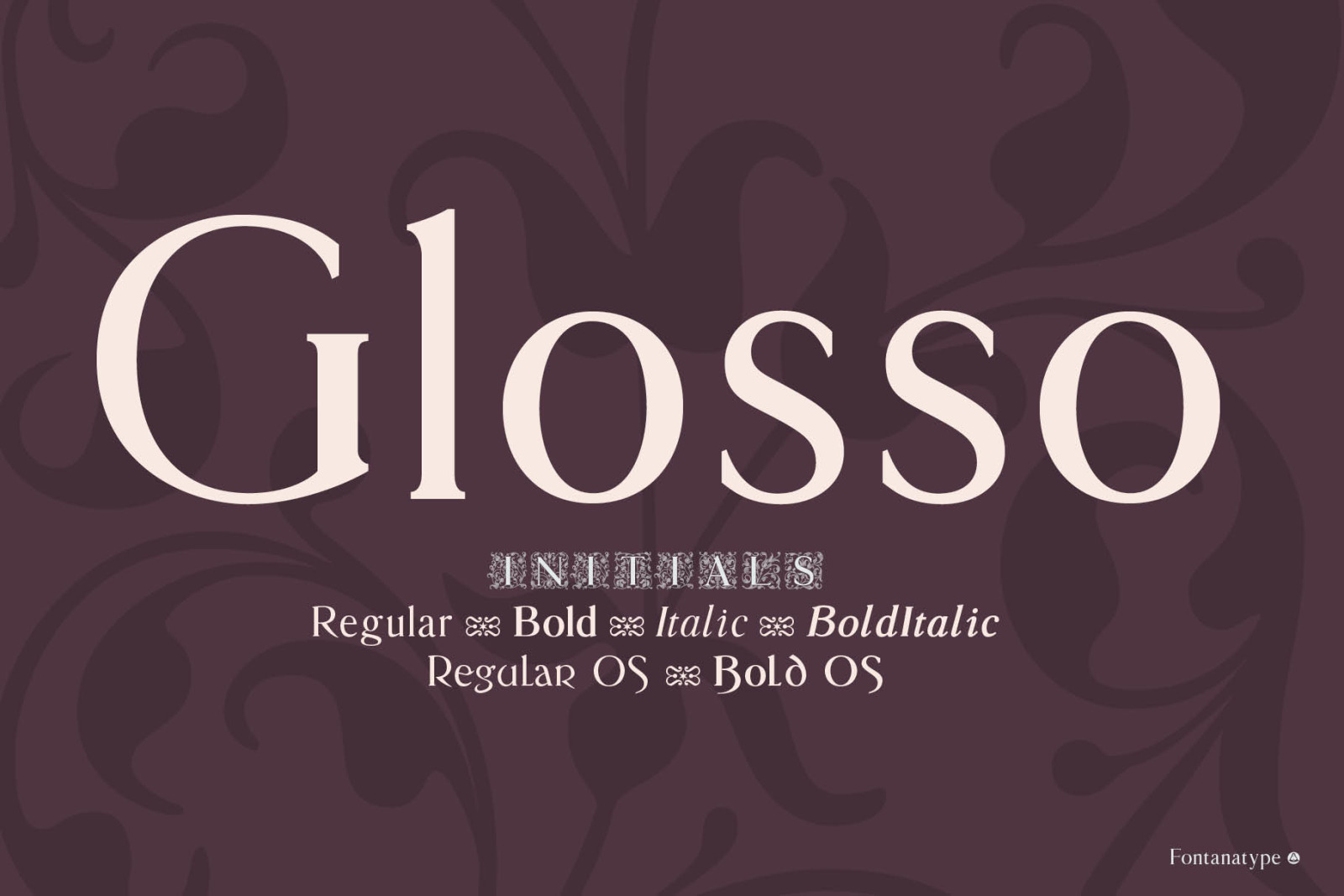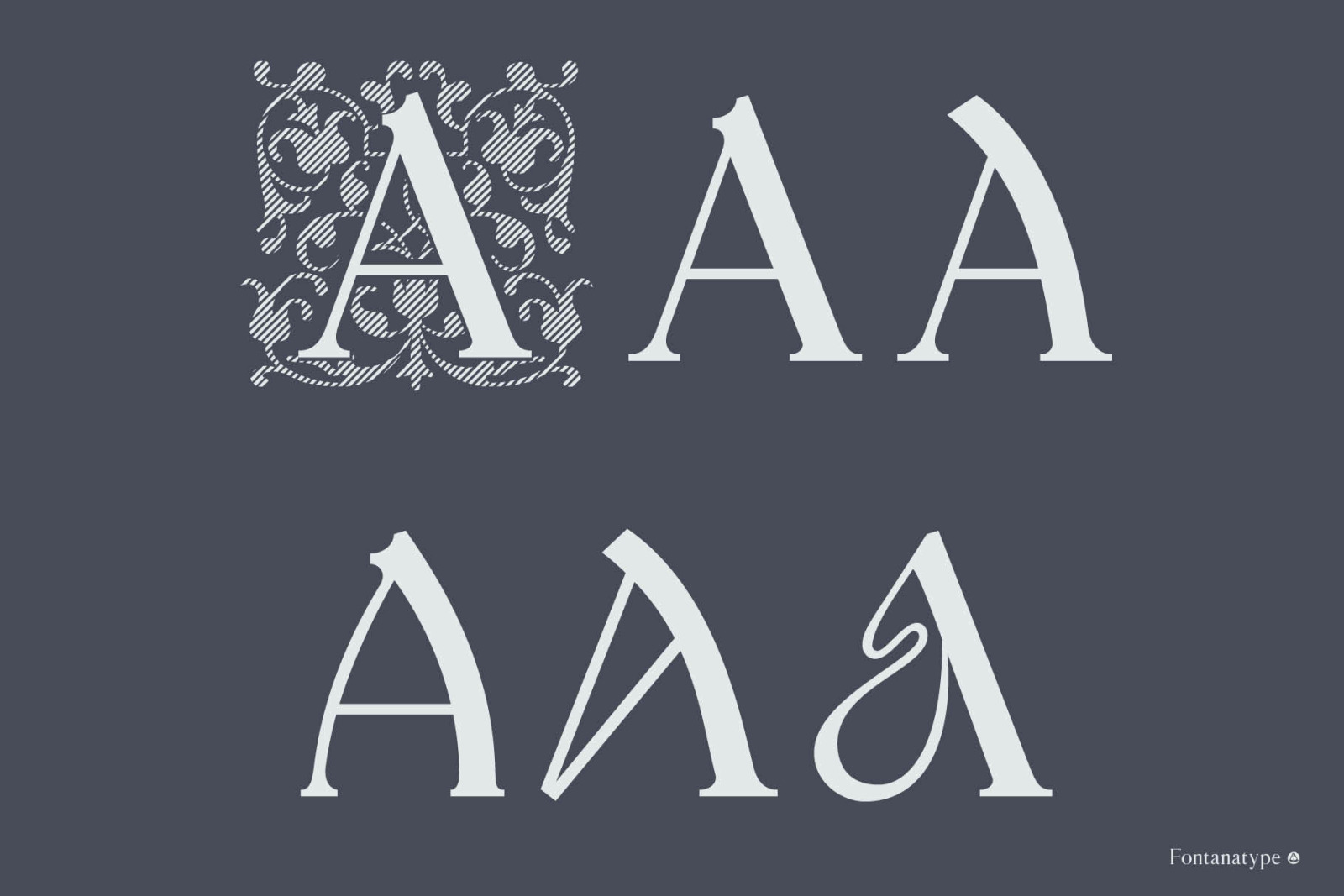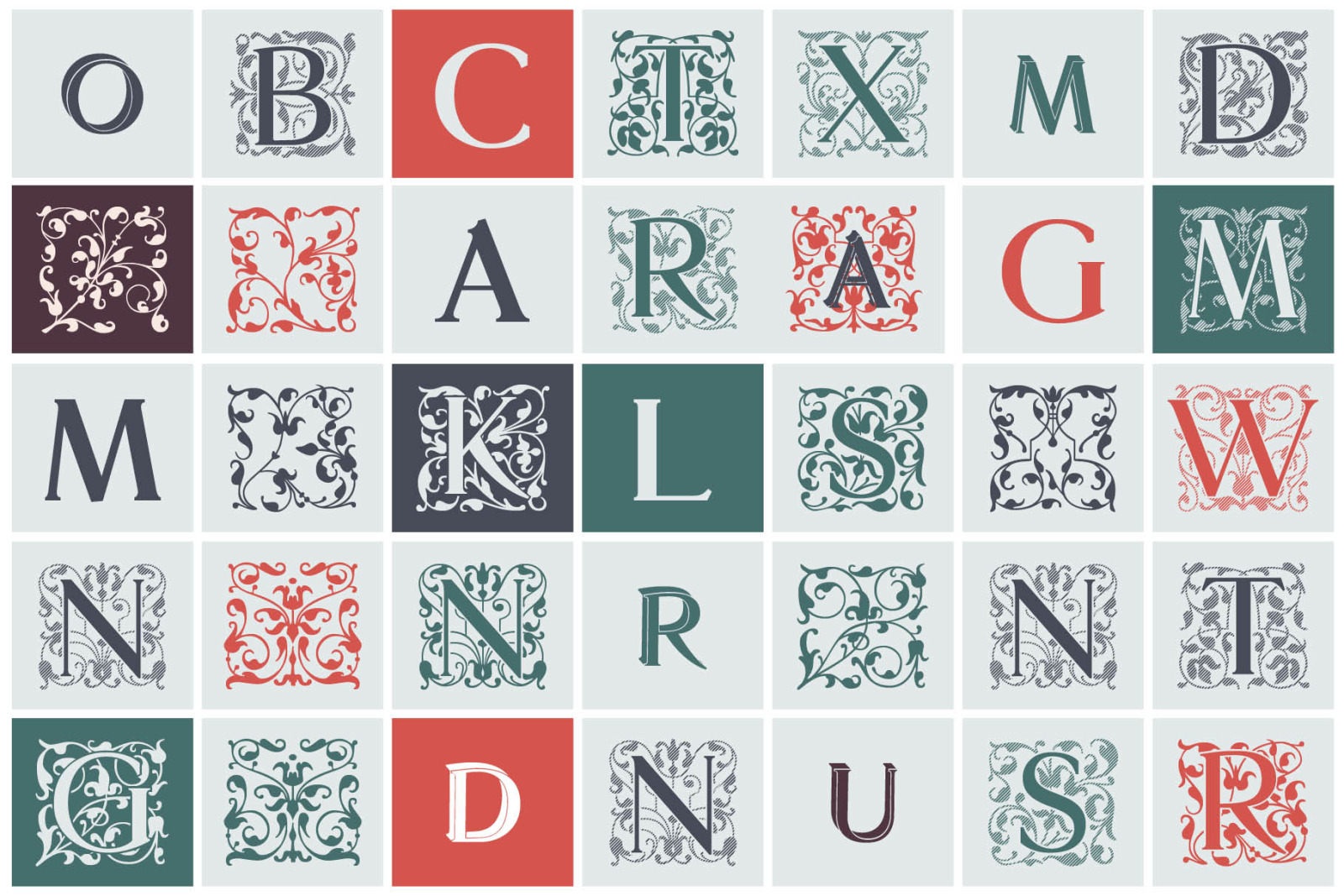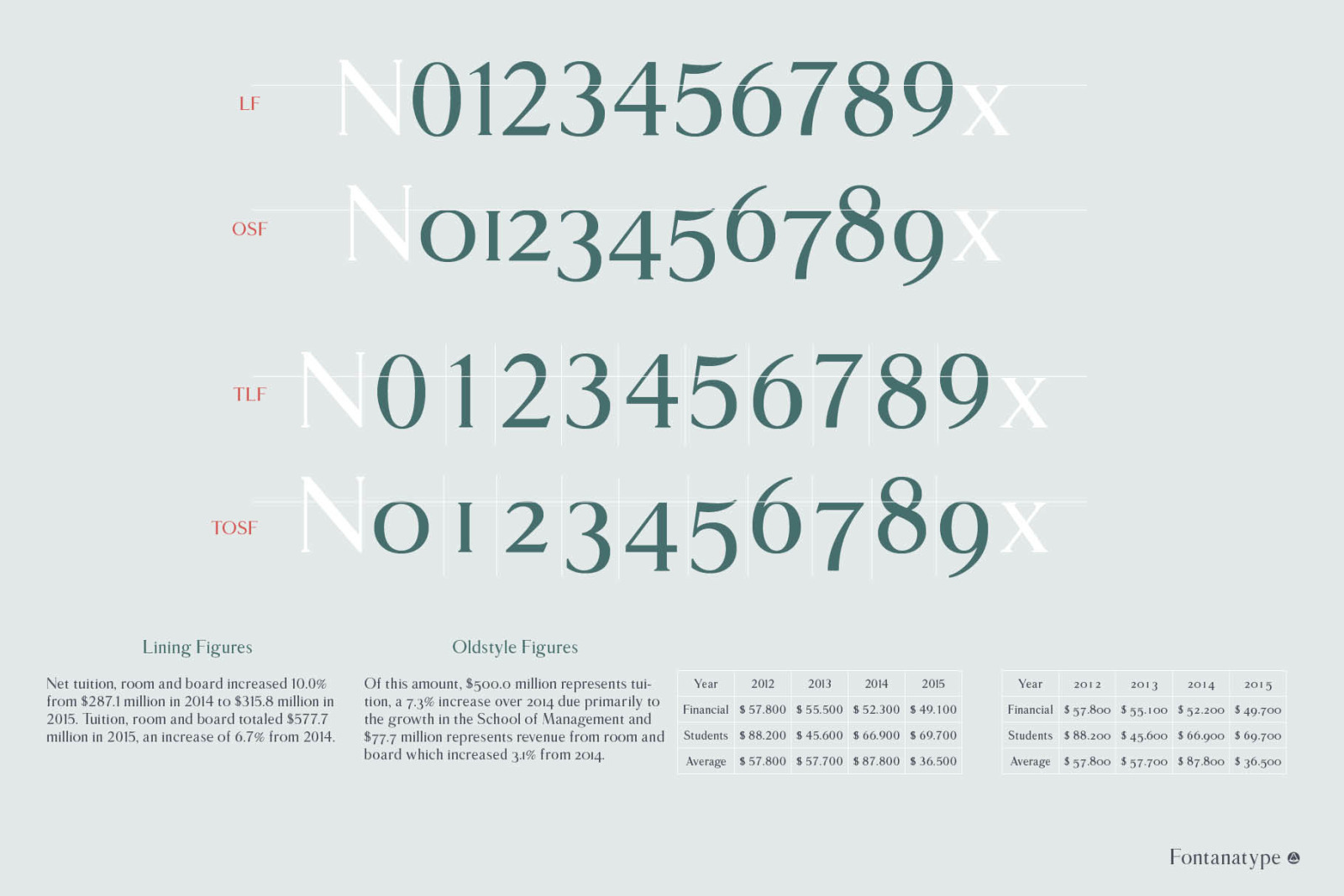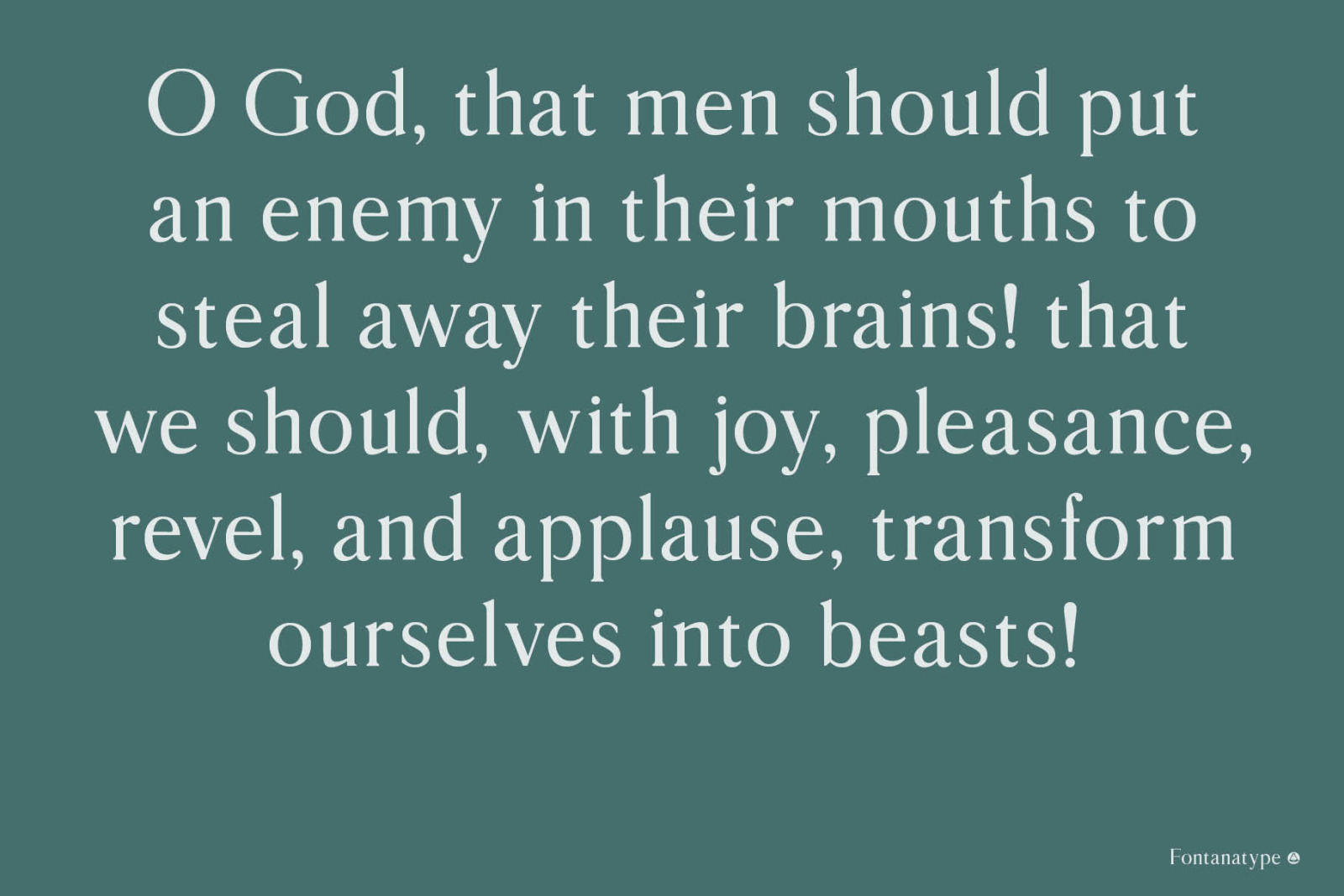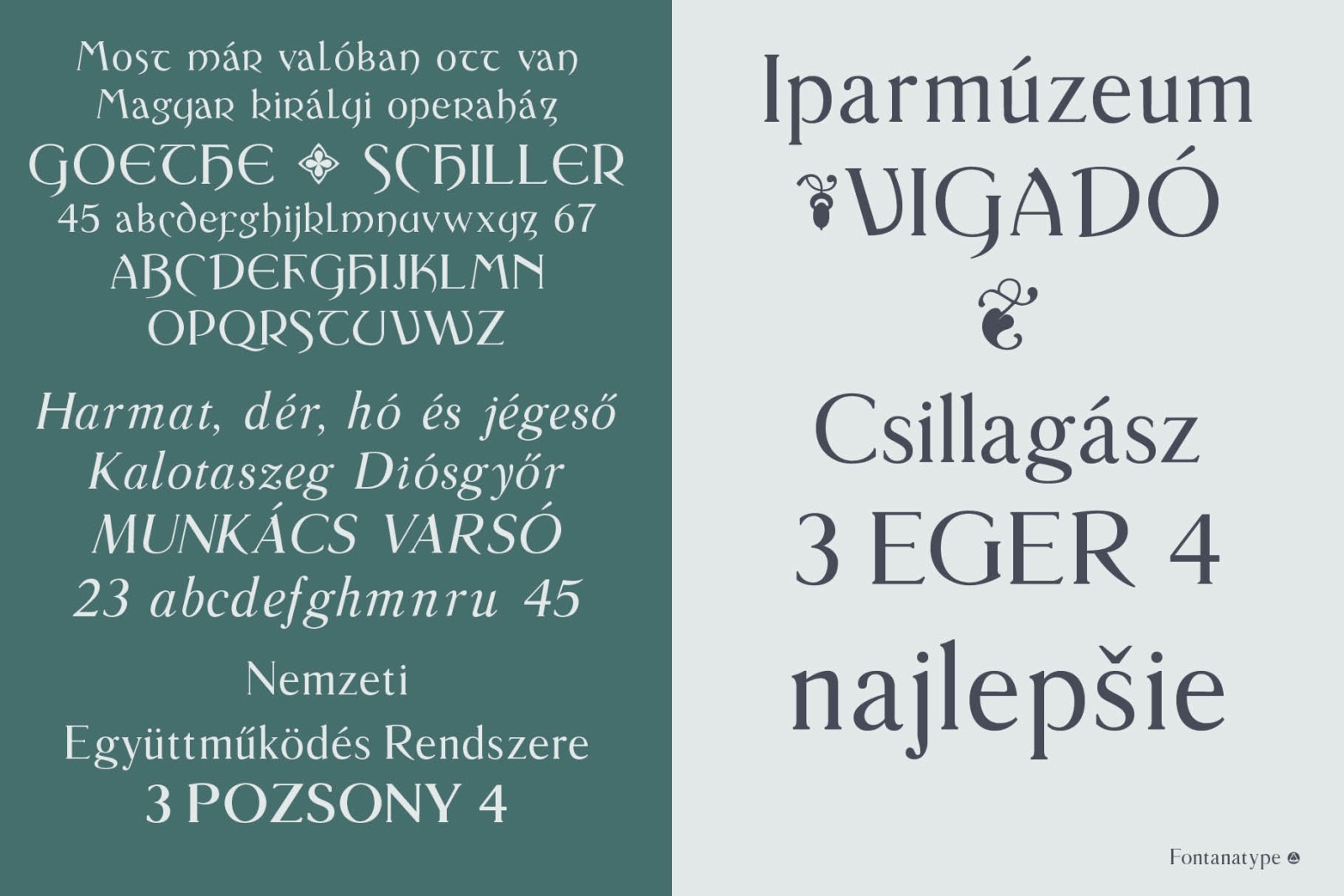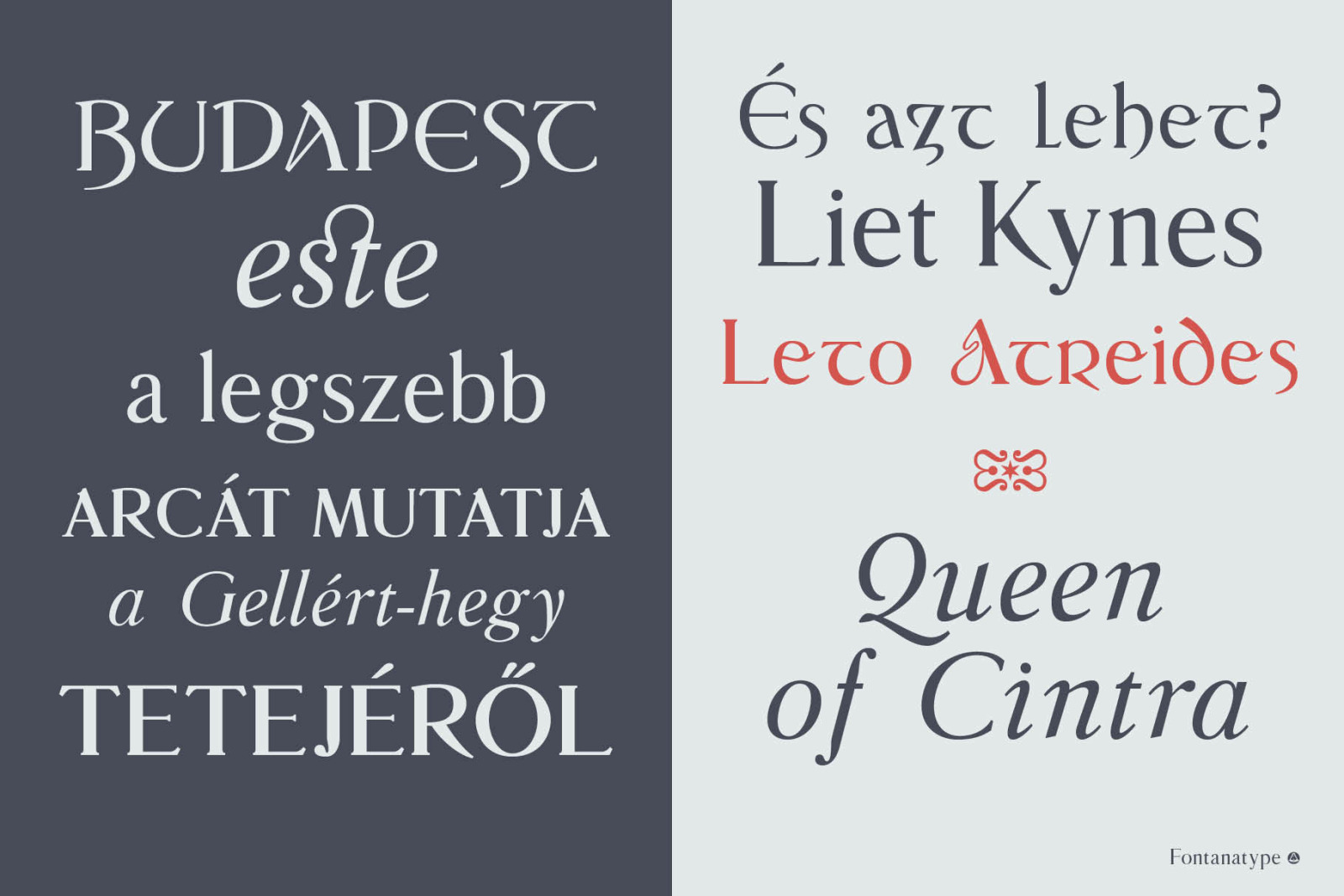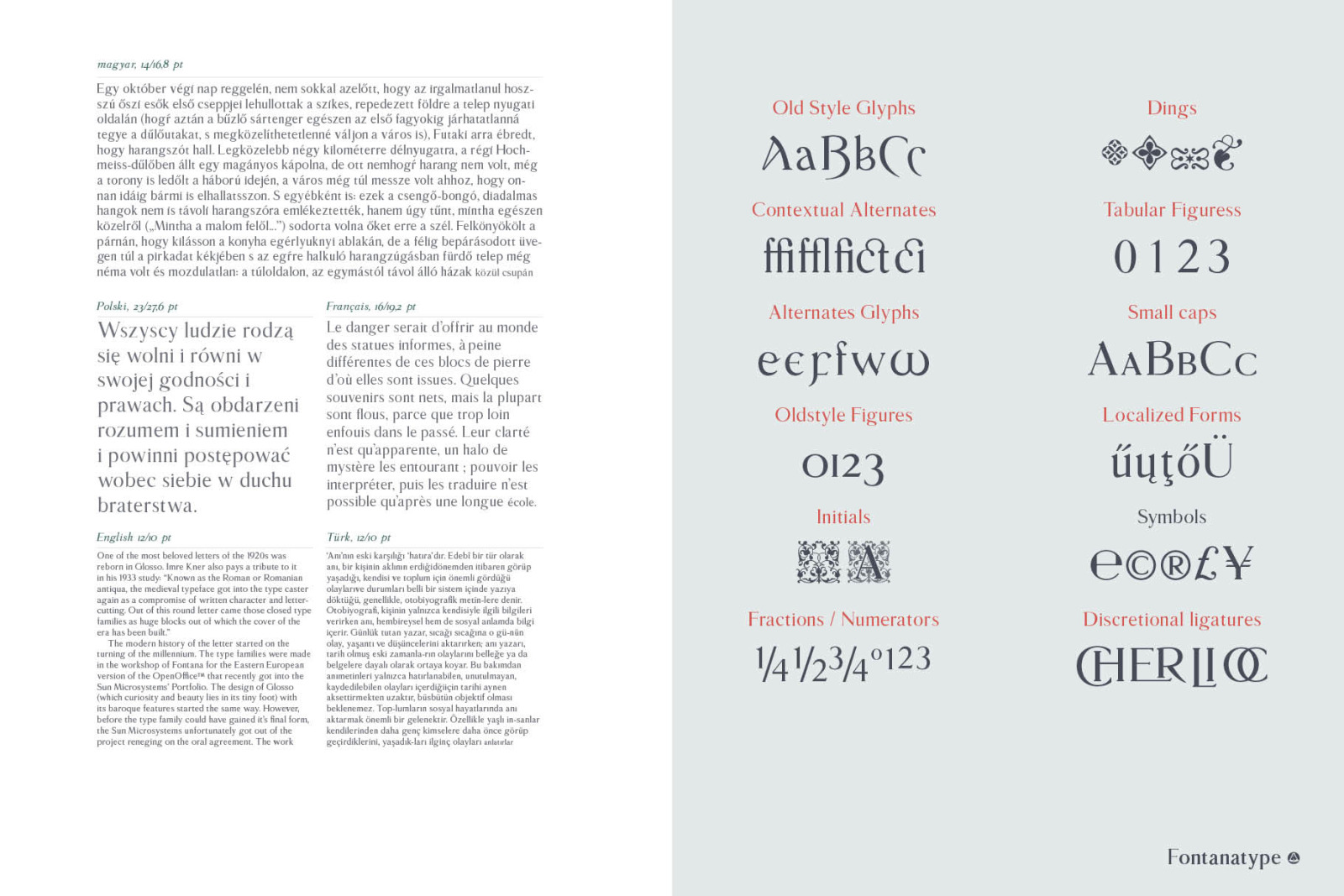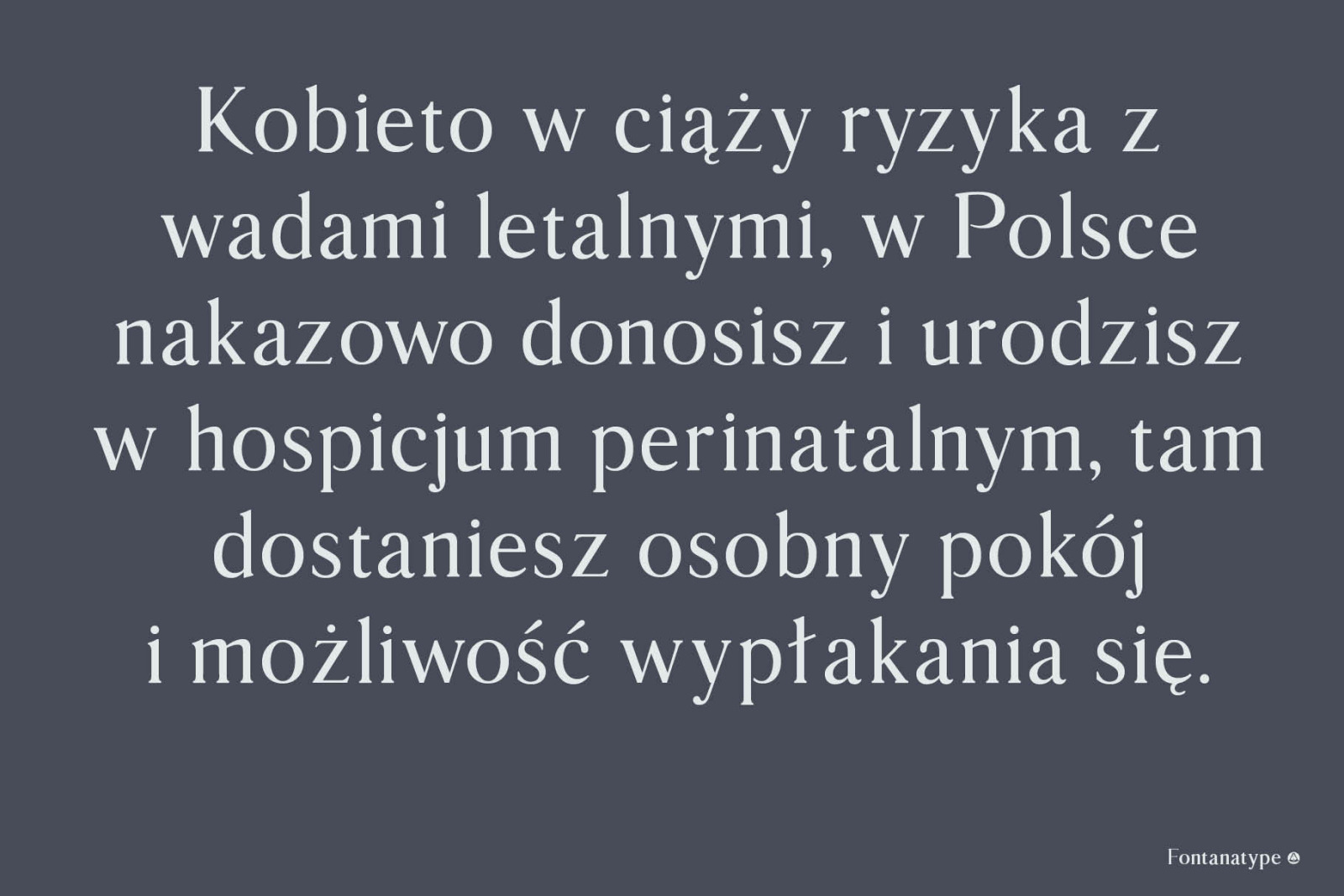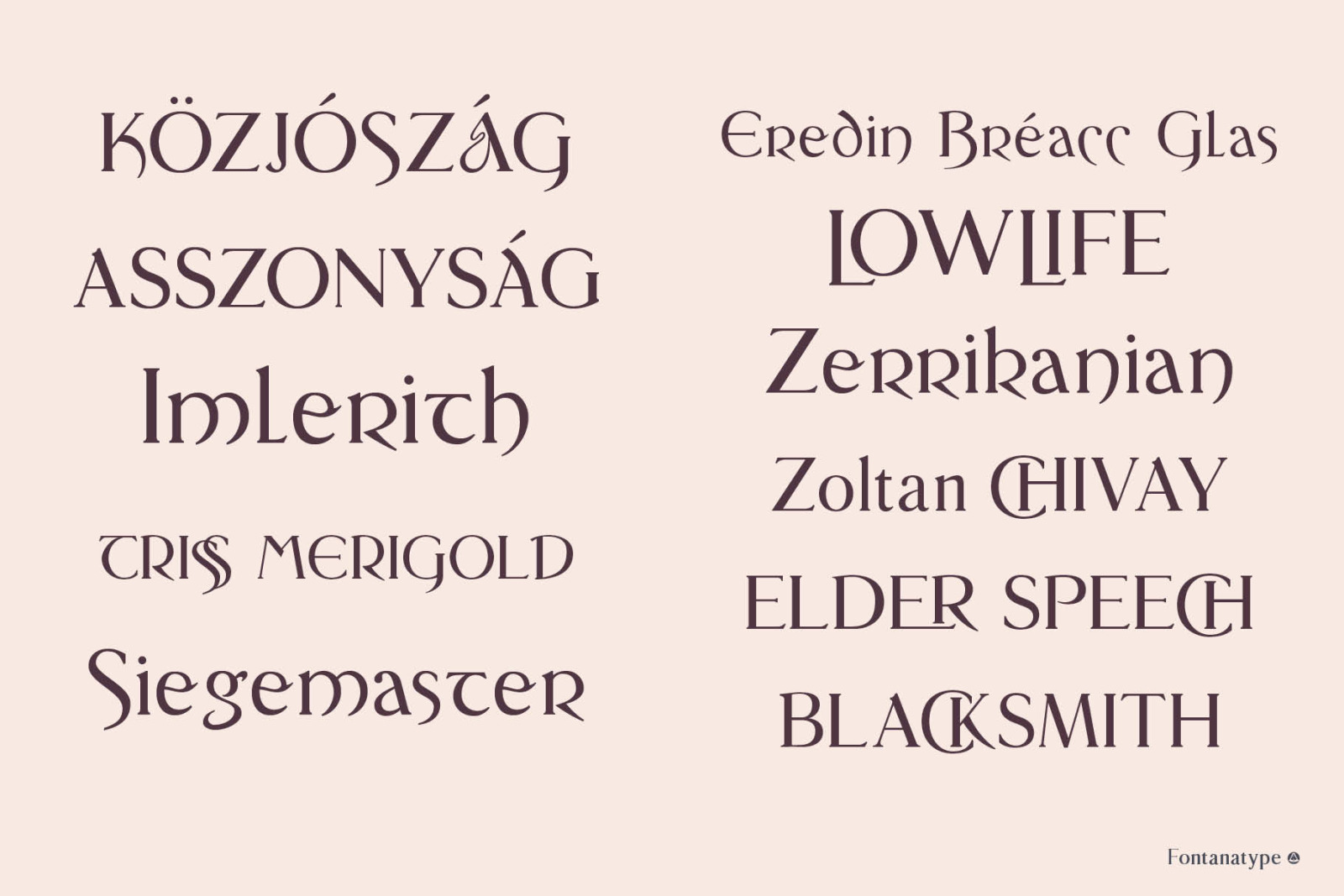
Glosso Typeface Family
The Glosso restaged in 2022. The Glosso has received a significant update. (Under the old-new name) Brand new Old Style lettering and lots of alternate letters. A Cyrillic version is coming soon.
One of the most special letters of the 1920s was reborn in Glosso. Imre Kner also pays tribute to it in his 1933 study: “Known as the Roman or Romanian Antiqua, the medieval typeface got into the type caster again as a compromise of written character and letter-cutting. Out of this round letter came those closed type families as huge blocks out of which the cover of the era has been built.”
The modern history of the letter started at the turning of the millennium. The type families were made in the workshop of Fontana for the Eastern European version of the OpenOffice™ that recently got into Sun Microsystems’ Portfolio. The design of Glosso (in which curiosity and beauty lie in its tiny foot) with its baroque features started the same way. However, before the type family could have gained its final form, Sun Microsystems, unfortunately, got out of the project reneging on the oral agreement. The work done so far however was not in vain; after the Fontanatype, first, the T-26 Digital Type Library started marketing the letter type around the world.
It is true that the letter has been in circulation for nearly 10 years, it will really amaze its users in a new, embellished form. Finally, this extremely utile text letter can really show its true colors. Several functions have been added to its users making it even easier to use. Among other things, the total support of the Latin-based languages (Western-, Central-, Eastern European, Baltic and Turkish) is included. The basic form has been completed with small caps, however, we don’t have to give up on old-style numbers either. The beautifully drawn ornamental initials are also captivating.